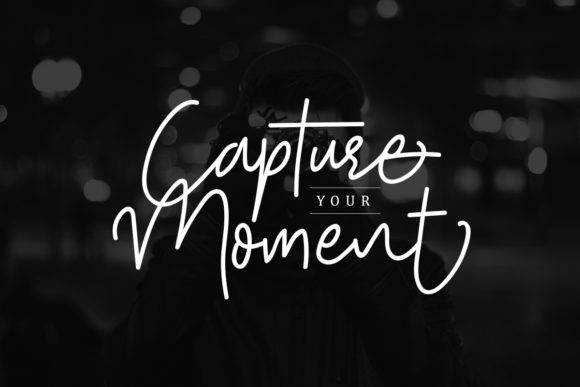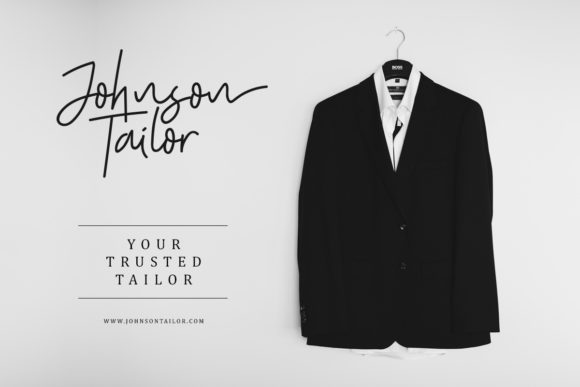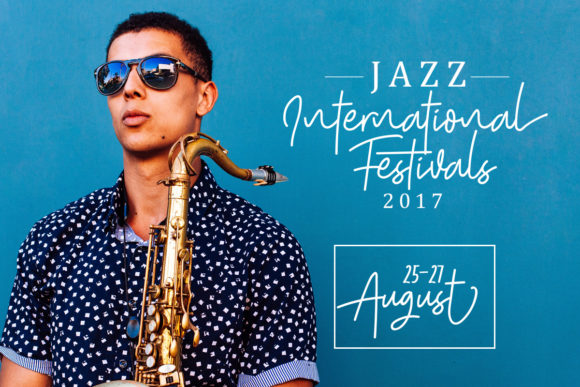
Introduction to Shutter Stone Font
The Shutter Stone is a handwritten signature typeface.
It will give an elegant, yet striking style to your designs .